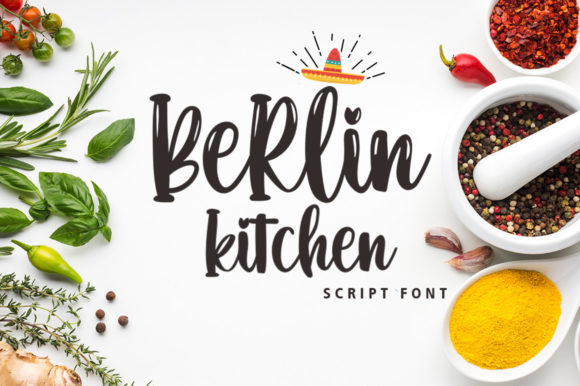
Embrace the elegance and creativity that flows from the nib of Berlin Kitchen Font Font - a captivating script font family crafted by the talented Delisha Design. Immerse yourself in the beauty of this timeless handwritten font, meticulously designed to bring life to your creative endeavors.
Step into a world of boundless possibilities, where Berlin Kitchen Font Font dances across your designs with a unique and beautiful touch, making every letter a captivating work of art. Let your imagination roam free as you craft eye-catching logos that command attention, branding that exudes sophistication, and quotes that resonate with heartfelt emotion.
With Berlin Kitchen Font Font, the ordinary becomes extraordinary. Its graceful curves and playful flourishes add a touch of charm and personality to any project. Its versatility knows no bounds, whether you're designing for print, web, or social media. Unleash your creativity and let Berlin Kitchen Font Font elevate your designs to new heights.
Indulge in the exquisite details that make Berlin Kitchen Font Font a true masterpiece. Each letter is meticulously crafted, ensuring that your designs exude a sense of timeless elegance. The smooth flow of the lines creates a harmonious balance, while the subtle variations in thickness add depth and dimension.
Dive into the world of Berlin Kitchen Font Font and discover the endless possibilities that await. Let your creativity soar as you create stunning works of art that captivate and inspire. Experience the joy of crafting designs that leave a lasting impression, knowing that Berlin Kitchen Font Font is your trusted companion on this creative journey.